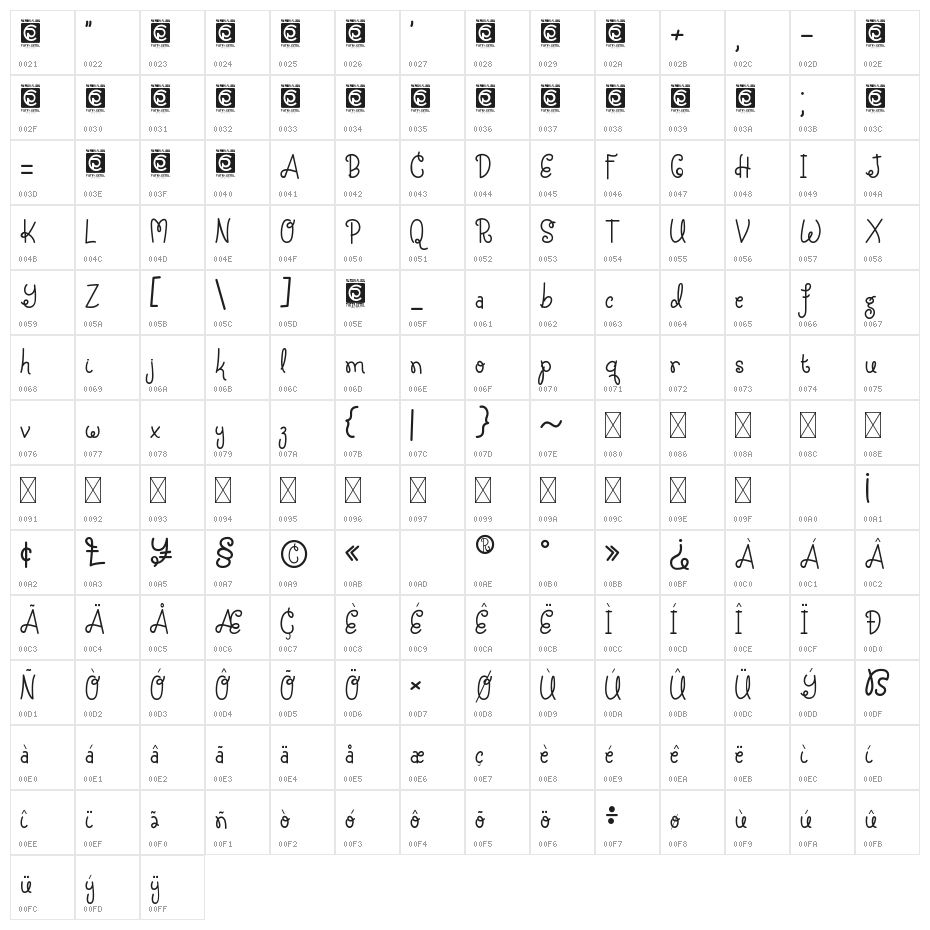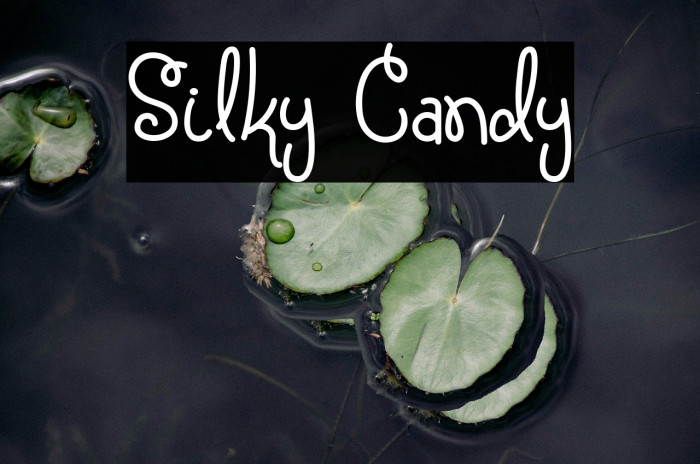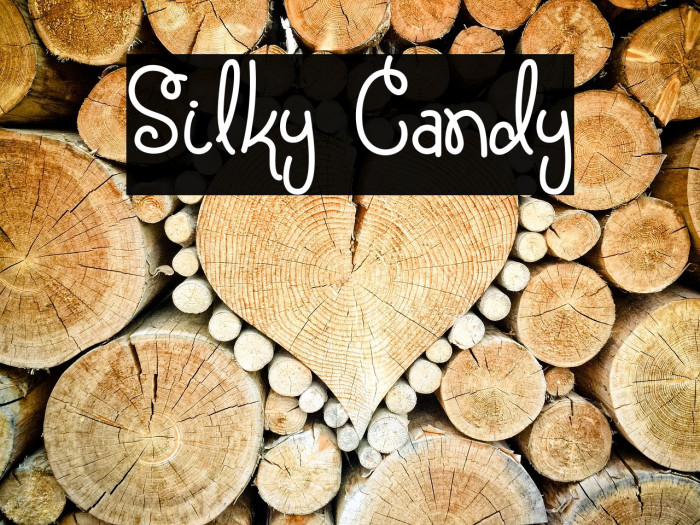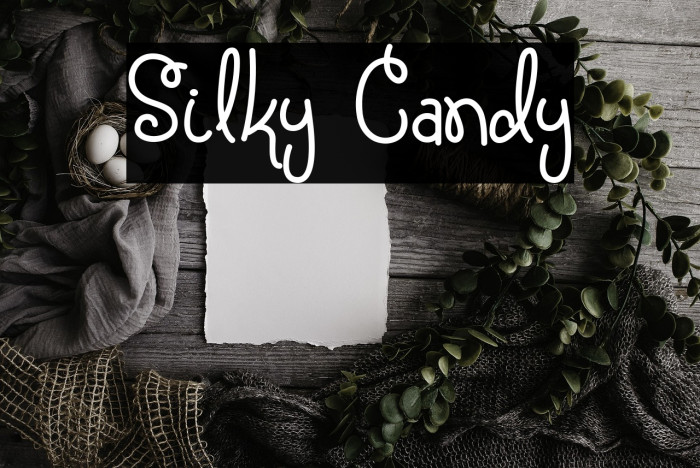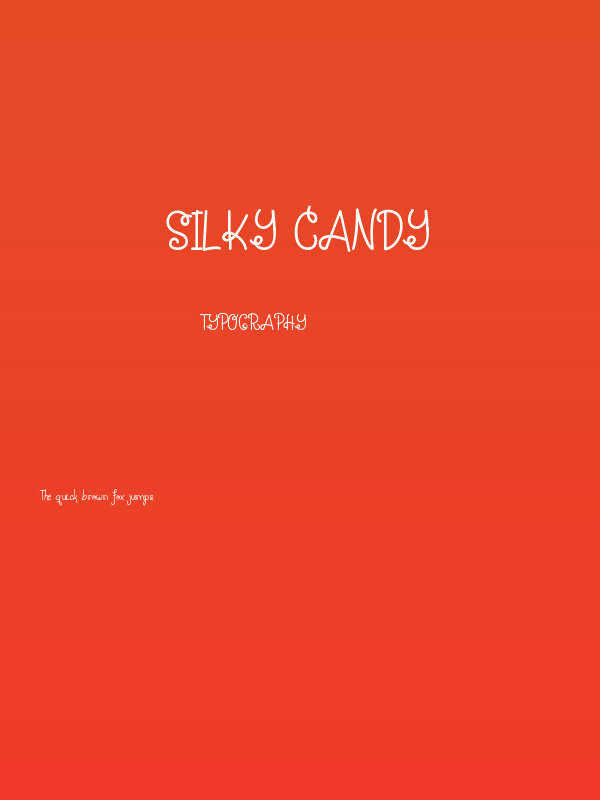
Silky Candy Font
Silky Candy Description
This whimsical and playful font features a unique blend of curvy and flowing lines, giving it a lively and energetic appearance. The uppercase letters are bold and expressive, with distinctive loops and swirls that add a touch of elegance and fun. The lowercase letters maintain the same playful style, with a slightly more relaxed and informal feel. The numbers and special characters are designed to match the overall aesthetic, ensuring a cohesive look across all text elements. This font's distinctive style makes it perfect for projects that require a touch of creativity and personality.
| Overall Style | Playful and Whimsical |
| Use Case | Logos, Posters, Greeting Cards |